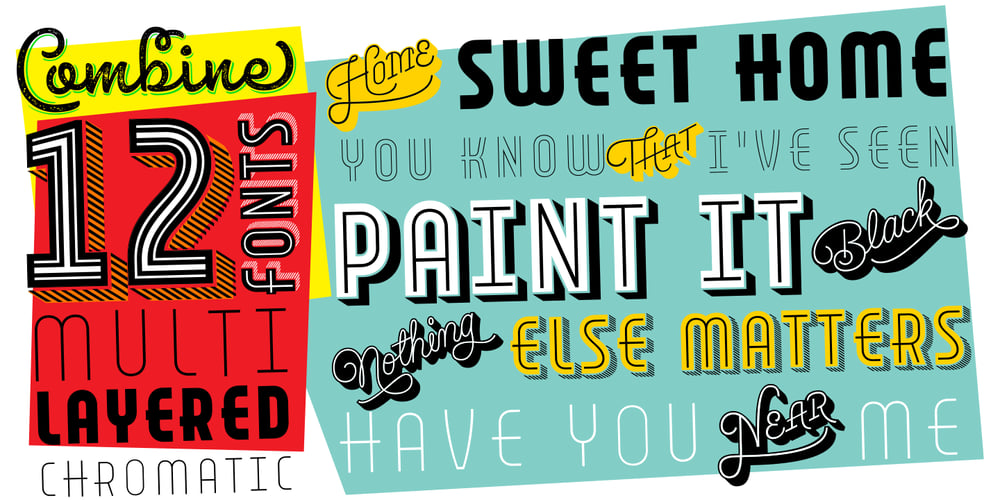
Combine Font Family was designed by Carlos Fabián Camargo Guerrero and published by Andinistas. Combine contains 12 styles and family package options. Combine, designed by Carlos Fabian Camargo G, is powerful and attractive, multi-layered chromatic type family that consists of 12 fonts, typographically grouped in two logics: “Script and Caps”, so that they could be colored separately or in group. Both designed with contrasting optical techniques and combinable at the same time. The unforgettable central idea of Combine was inspired by unique types of speedball letters designed by ancient artists in Canadian posters of shows and fairs in 1930. This is why its Typographical tools work independently or in group, resulting in highly polished designs that need fonts with coupled effusiveness. Their combined resources offer guaranteed distinguishing letters with shadow effects and worn, in order to help enhance their expressiveness. Combine is excellent in any project on paper or screen as it has more than 2100 glyphs and features of OpenType distributed strategically in fonts easy to use. SEE BELOW THE MAIN ADVANTAGES: • Combine Script & Shadow: It offers incredible case sensitive fluency and eloquence drawn with vertical cursive letters with ornamental non-stop excitement and complementation. It also has a variety of significant upward and downward, alternative strokes combined with its vintage ties that also give authenticity to their designs. • Combine Caps 1,2,3 & Shadow1,2: Guarantees you a colorful horizontal area of narrow case with 2 types of shadows, sound and other shade with diagonal stripes. Its geometric uniformity gives a friendly, open and subtle character by Typographic and special resources and visual properties coloring layers separately or in groups. In addition, its 2 layers of skeletal illuminations, adding internal lines and simultaneously contributing to play perfect confrontation and contrast with their geometric ideas and aesthetics for special attention. • Combine Words & Shadow: It can be used to design a perfect tone in each one of the 50 slogans written diagonally, making a brilliant feeling suggestive seductive style. Compatibility and flexibility works by monoline thin cursive strokes ideal for featured items with and without shade. Combine was selected at the Bienal Tipos Latinos 2016